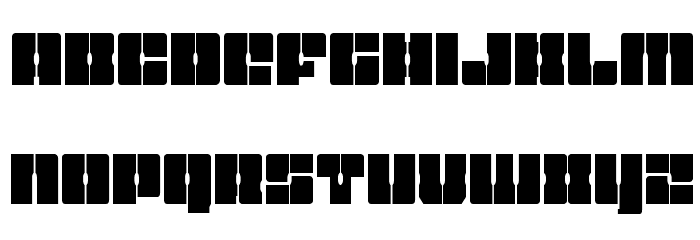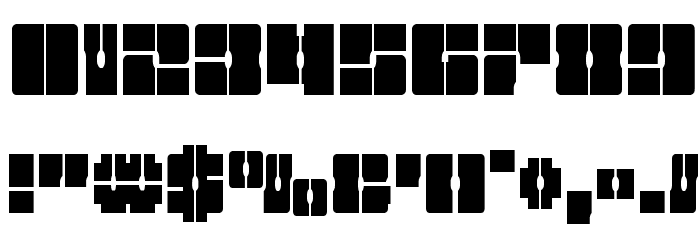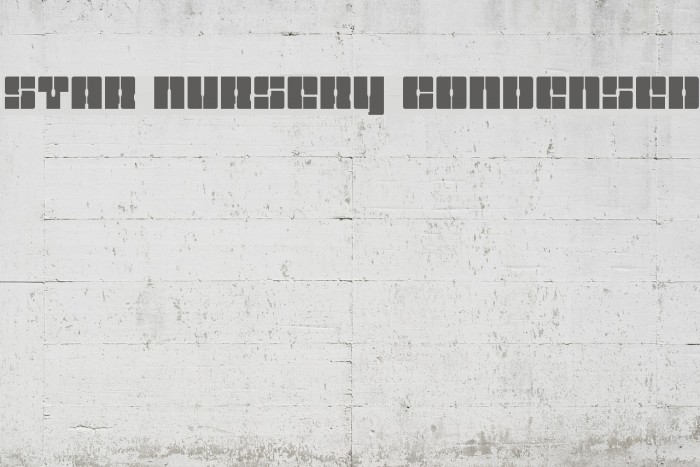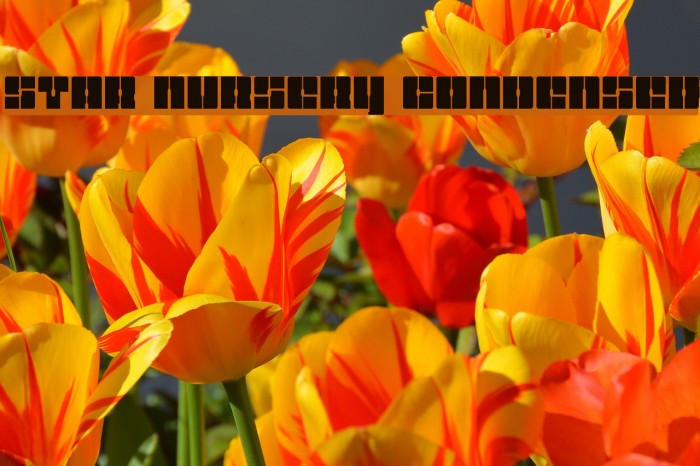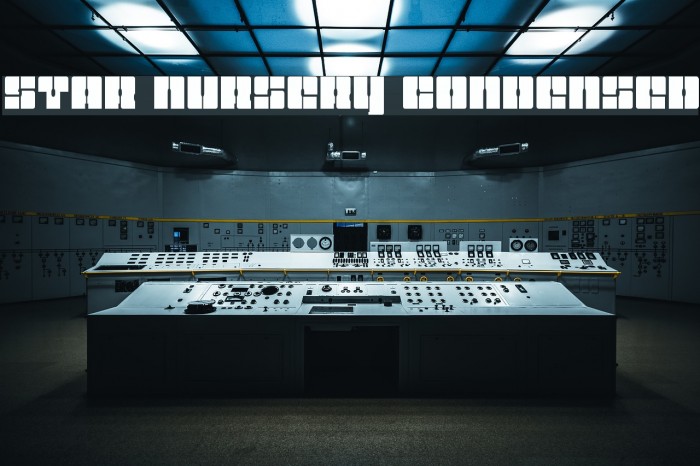
Star Nursery Condensed Font
This font features a bold, geometric design with a condensed width, creating a striking and impactful appearance. The characters are constructed with solid, block-like shapes, giving them a futuristic and modern feel. The uniformity in height and width across all characters ensures a cohesive look. The font's unique style is characterized by its high contrast between the thick, solid strokes and the negative space within and around the characters. This design choice enhances readability while maintaining a distinct visual presence. The font's boldness and geometric structure make it ideal for attention-grabbing headlines and display purposes.
A bold, geometric, and condensed font with high contrast, perfect for modern display use.
- Proposed Projects: Ideal for futuristic branding, poster designs, video game titles, and tech-related projects.